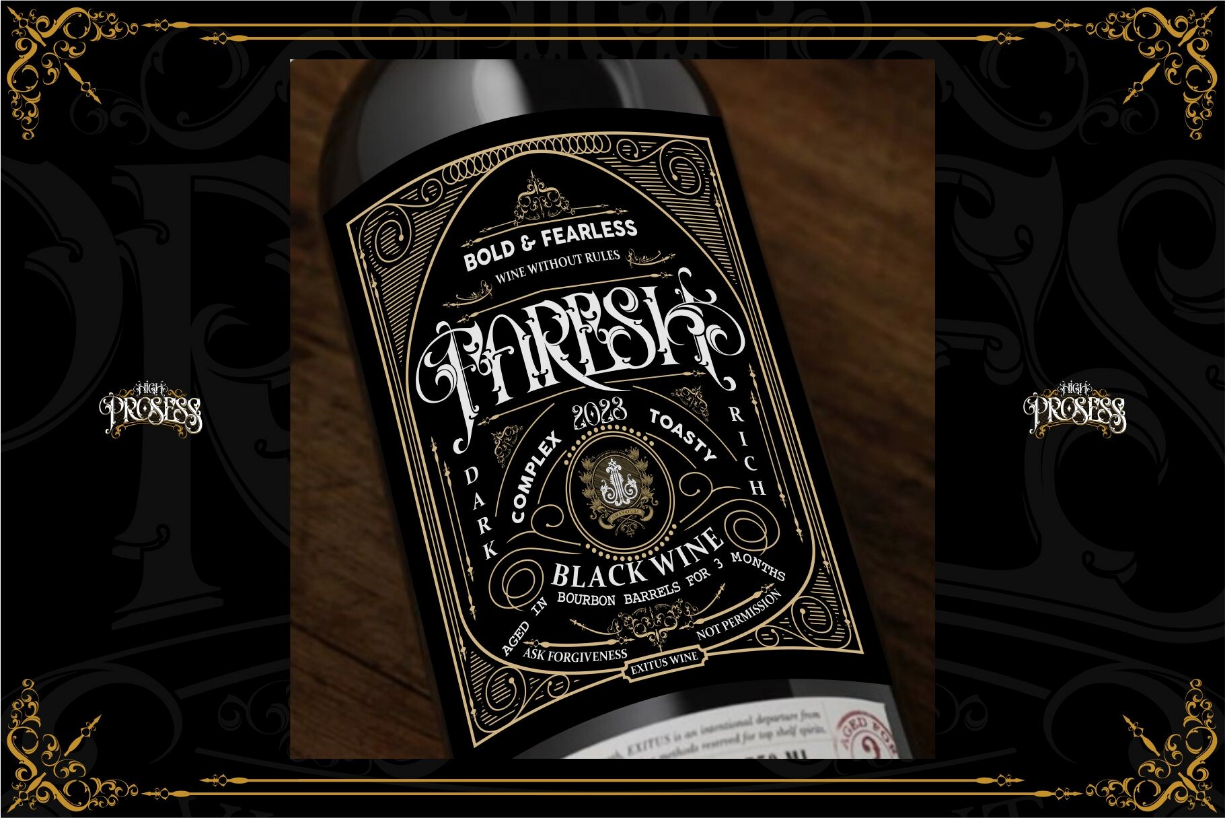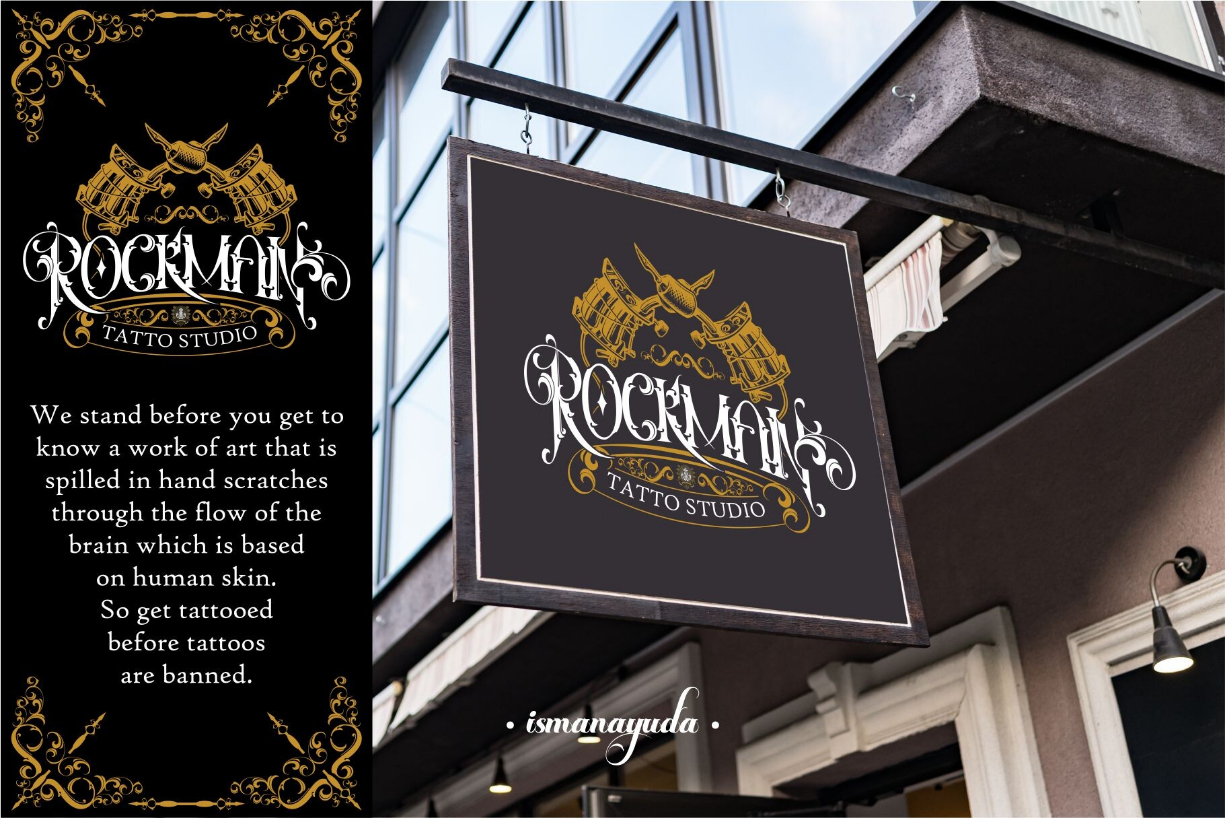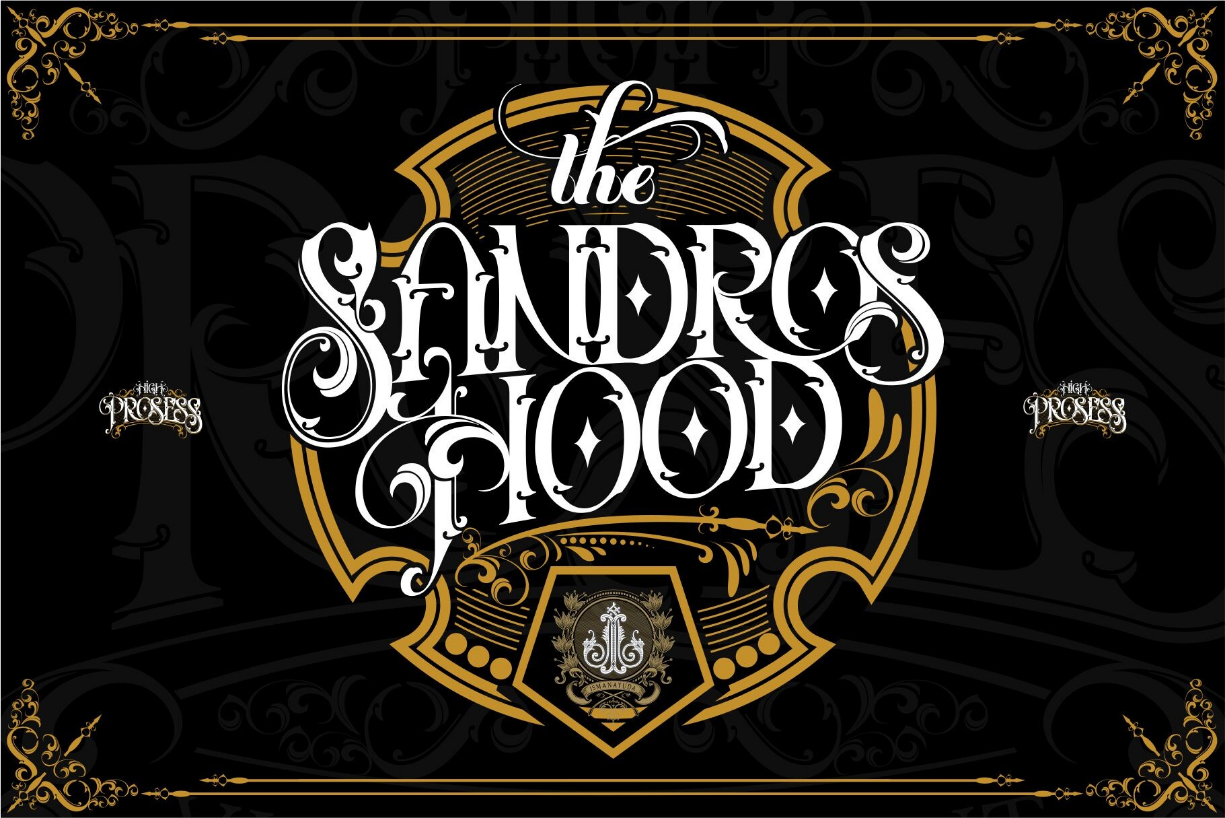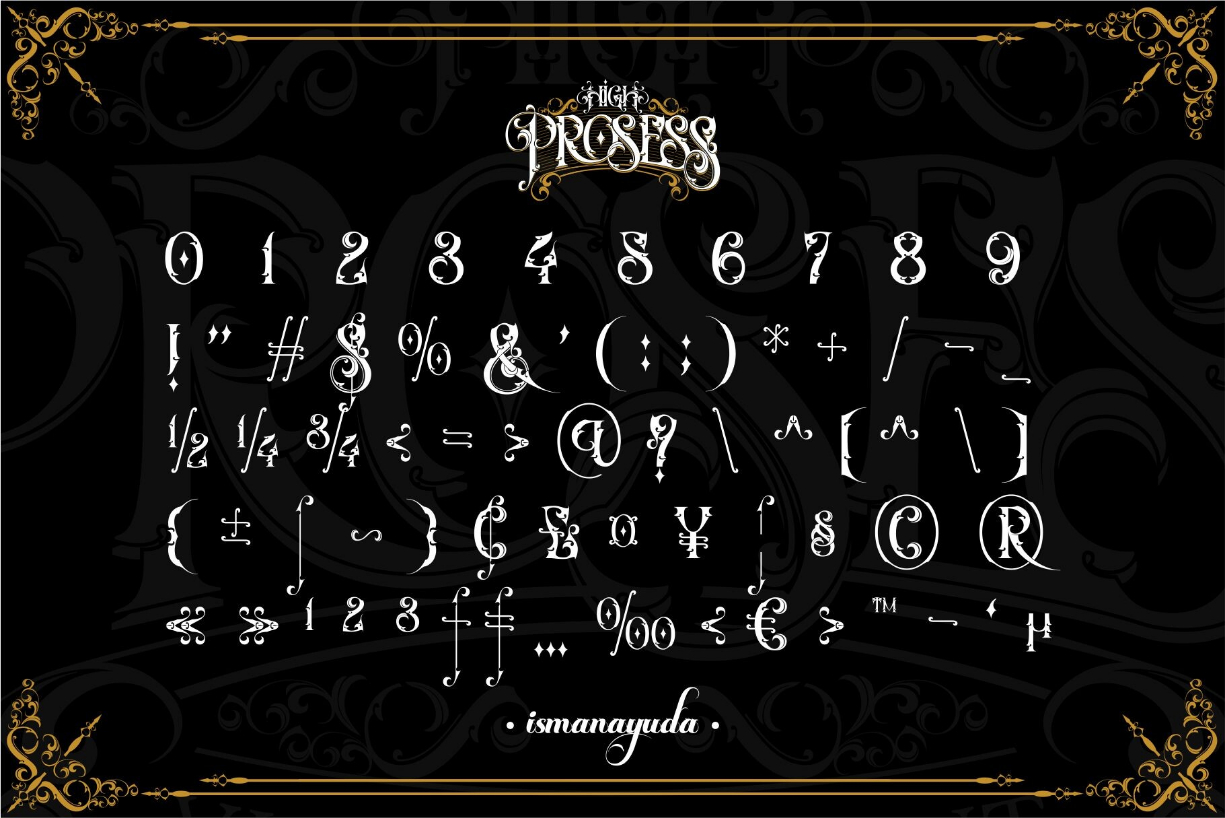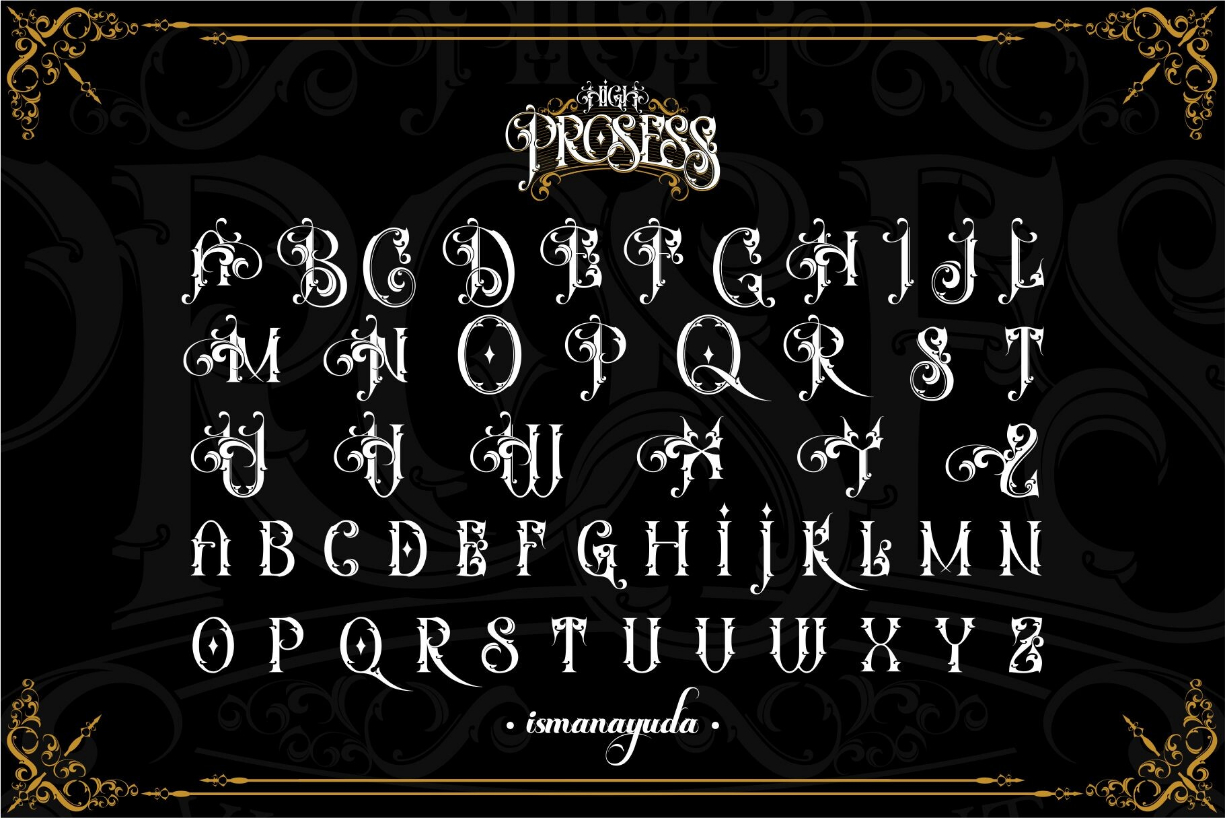
High Prosess Font
About High Prosess Font
High Prosess is a bold and thick lettered blackletter font. Add it confidently to your
projects, and you will love the results.